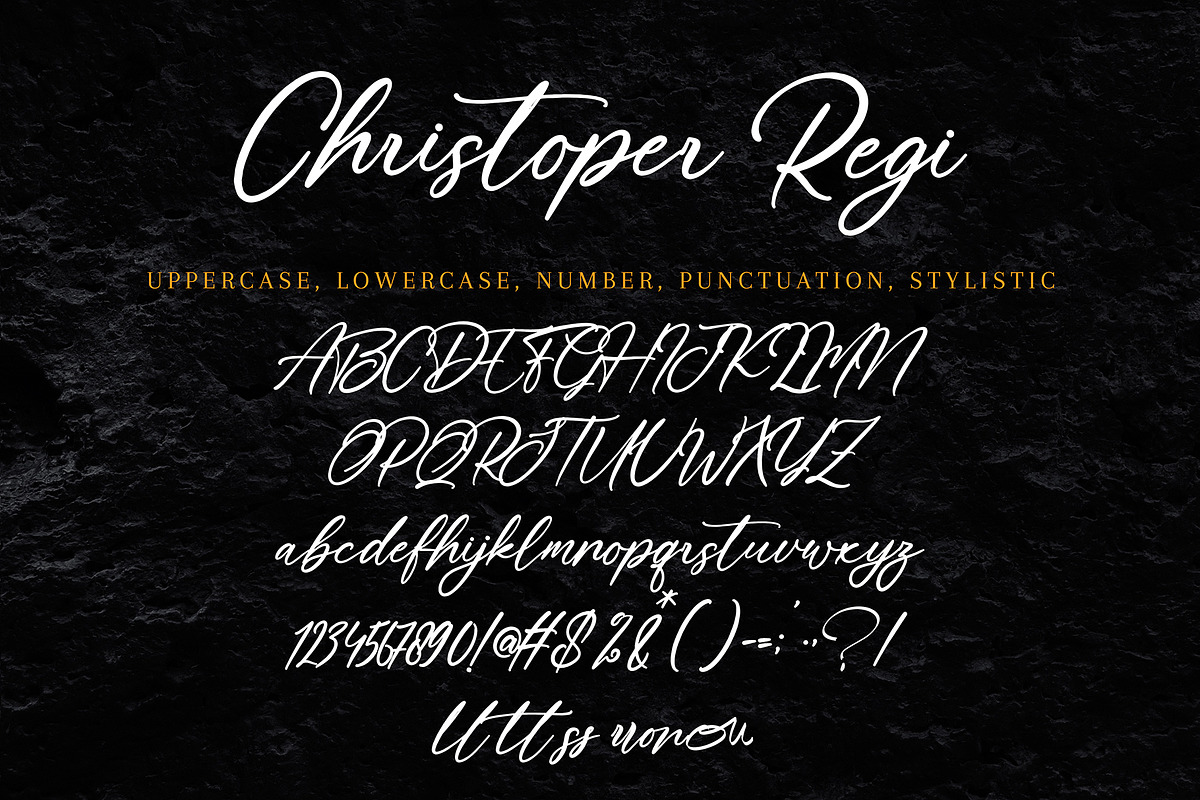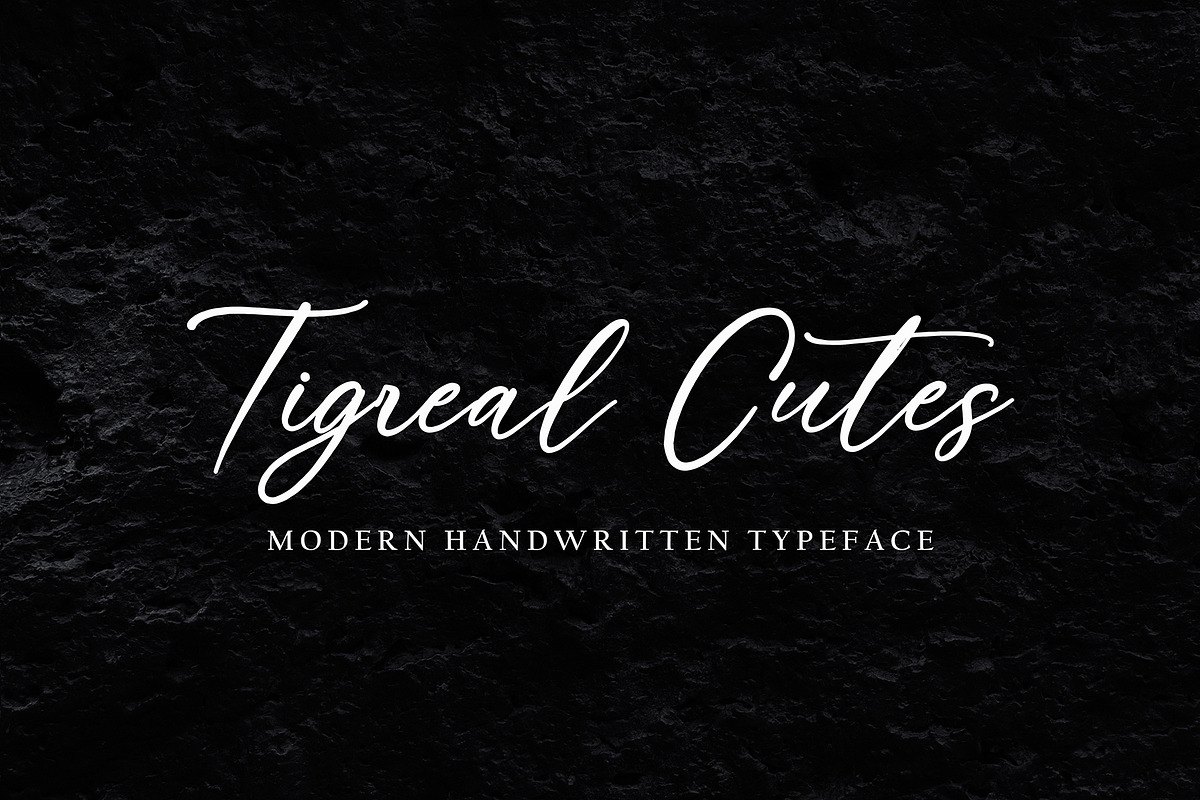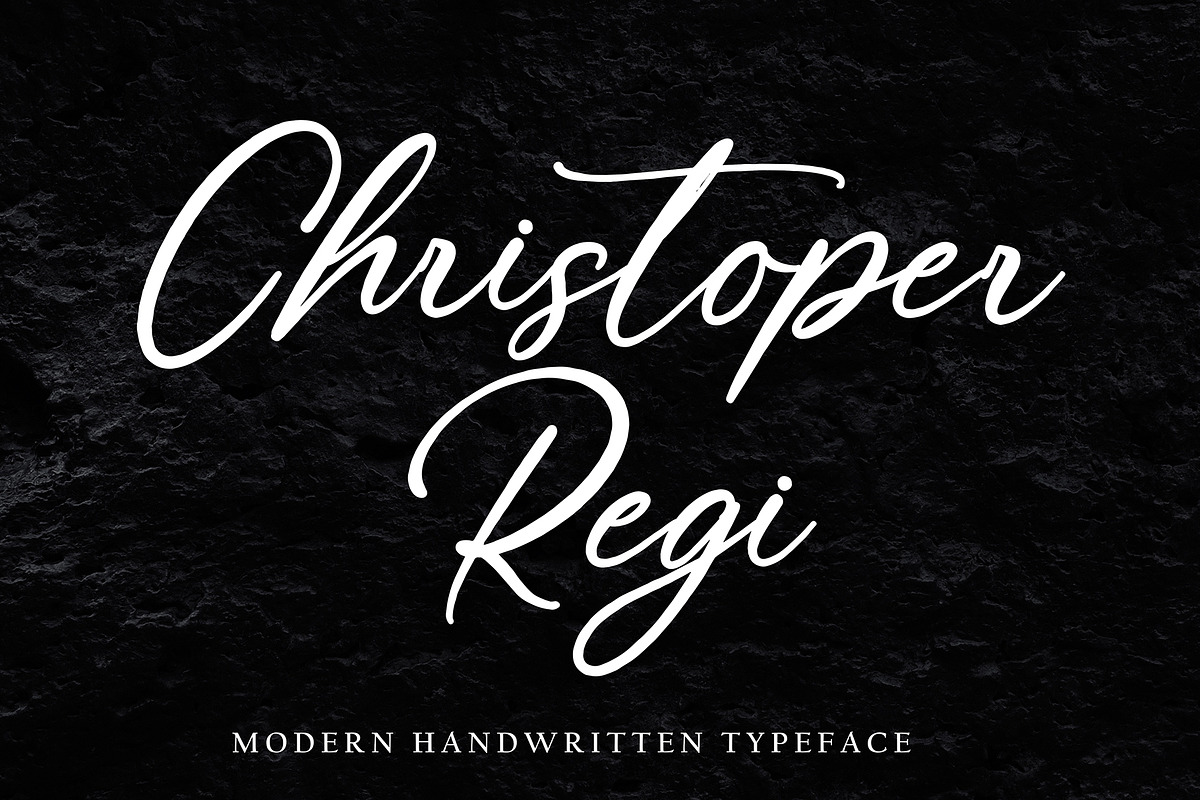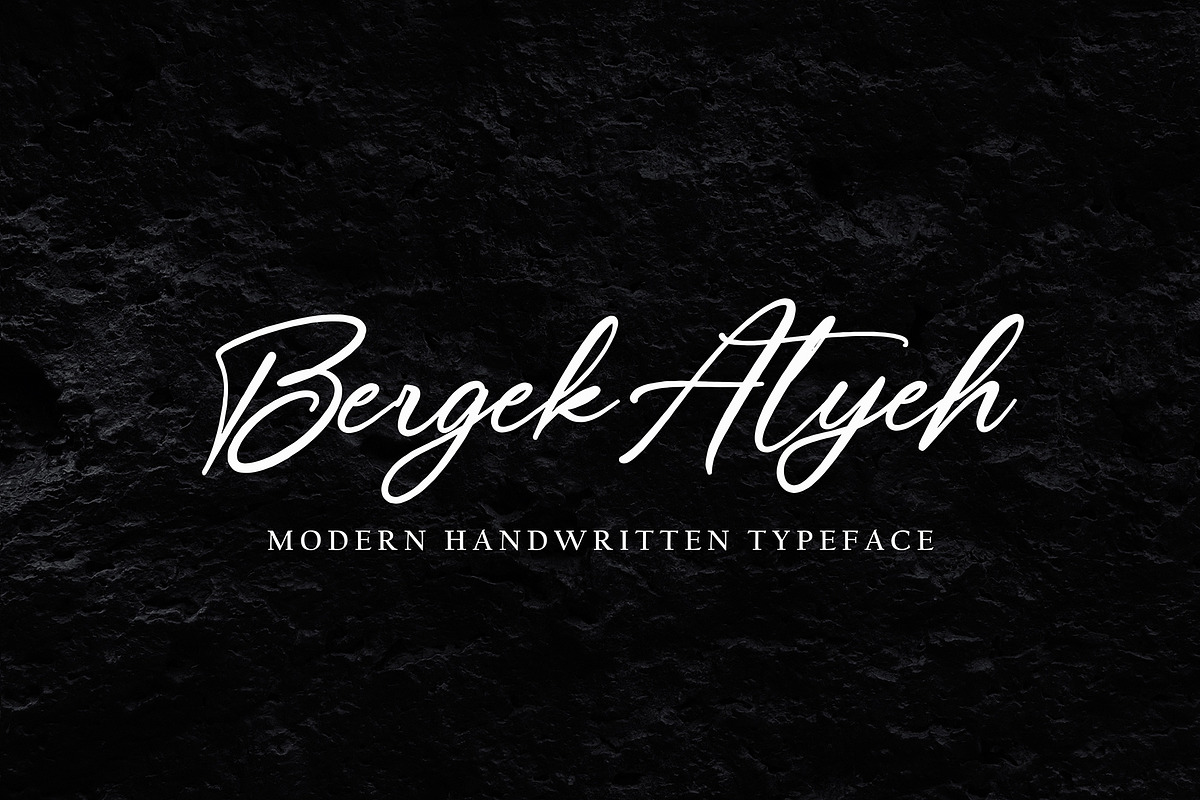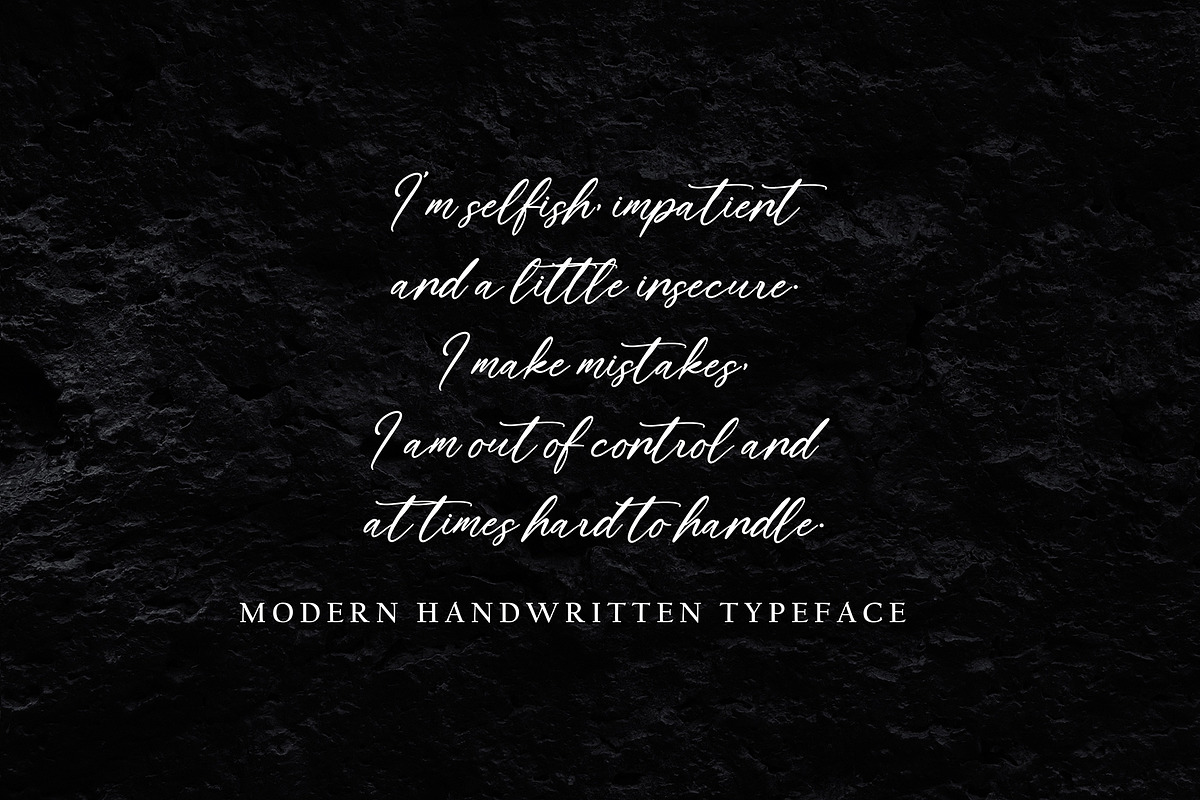
Christoper Regi
Christoper Regi with new style, this font will perfect for many different project ex: quotes, logo, blog header, poster, banding, letter, invitation, stationery, etc...